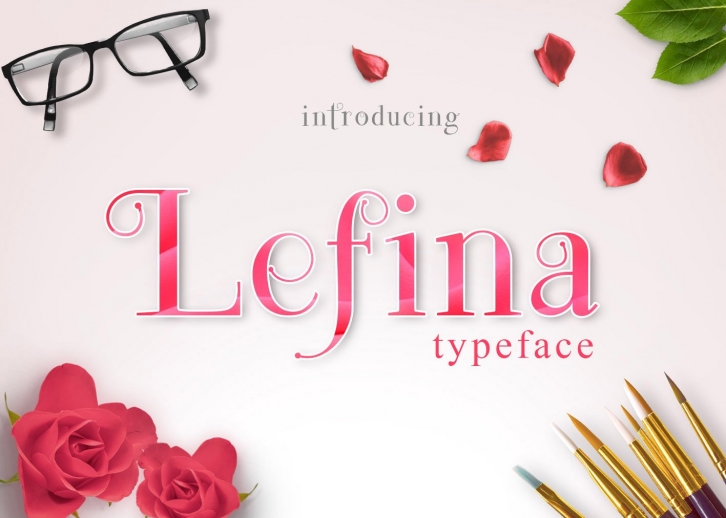
Lefina typeface is a display serif font in modern style and romantic scratch. Lefina typeface available in 2 different styles.
- Open Type features
- Special Lingature
- Punctuation special glyphs, numbers and symbols